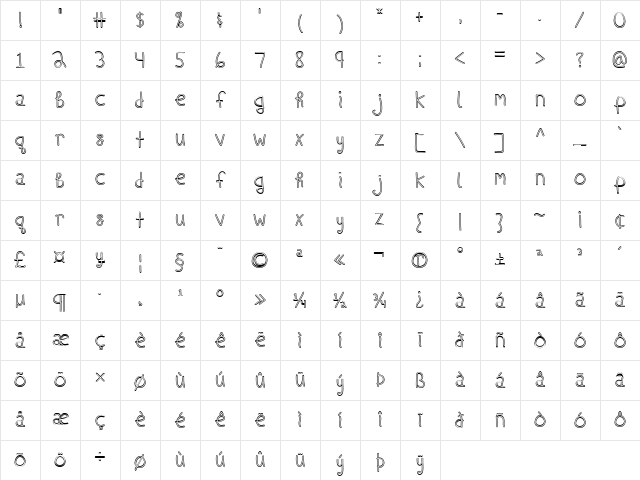
Complete Ships In The Night (Outline) Regular glyph index. Displaying only characters natively supported by Ships In The Night (Outline) Regular font.
Ships In The Night (Outline) is built around its visual character rather than neutral utility - its distinctive forms are designed to make an impression at display sizes.
Font Pairing: Pair with a clean neutral sans-serif for body copy to let Ships In The Night (Outline)'s character lead without overwhelming the composition.
Pro Tip: Use Ships In The Night (Outline) exclusively at display sizes - it was designed to be seen, not read at length. Let a neutral companion handle body copy.